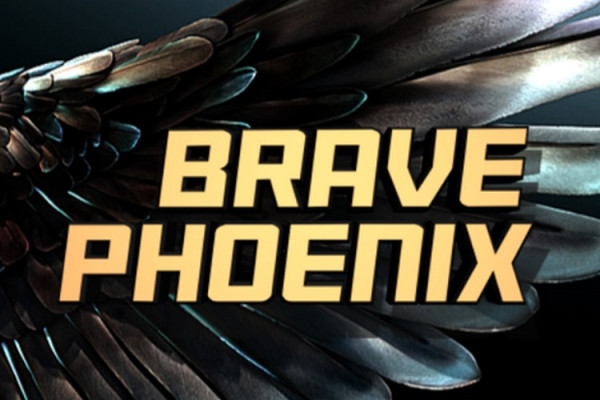
Brave Phoenix Font
Brave Phoenix Font, This bundle features strong, confident and powerful typefaces designed to work great with sports logos, club branding, apparel applications, labels and more.